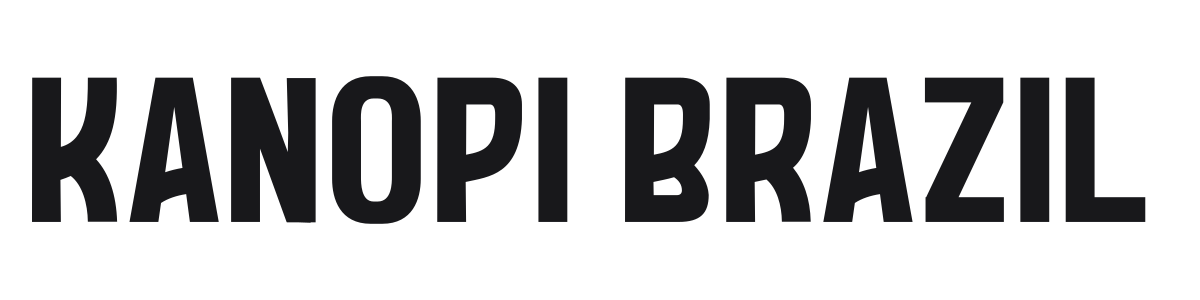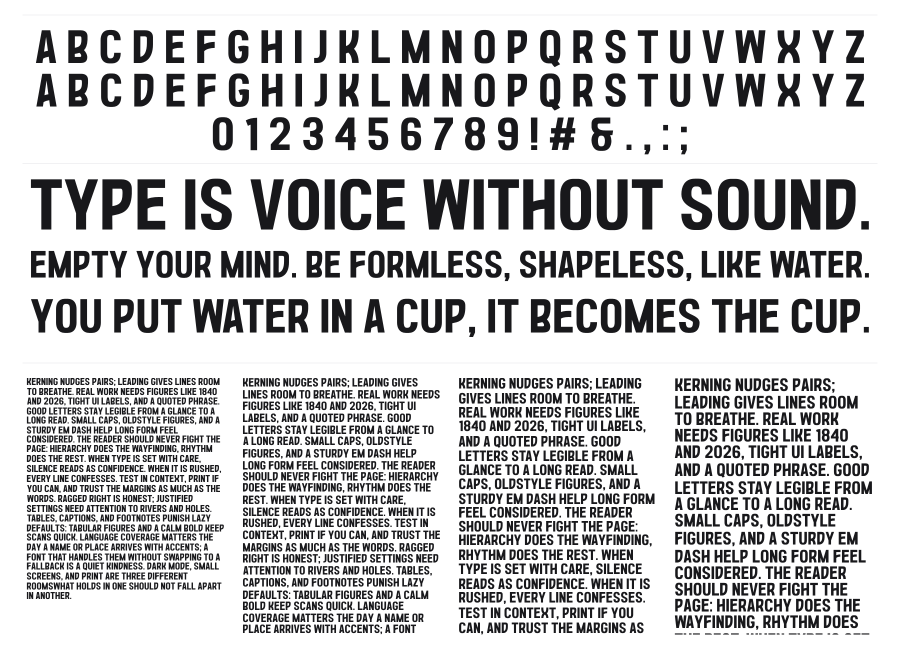
Kanopi Brazil
Kanopi Brazil is a heavy condensed grotesque with bold, compact proportions and subtle notched details at stroke joints. The tight spacing and near-monoweight construction give it a forceful, no-nonsense presence at headline sizes. It carries a contemporary sports and street culture energy without tipping into novelty.